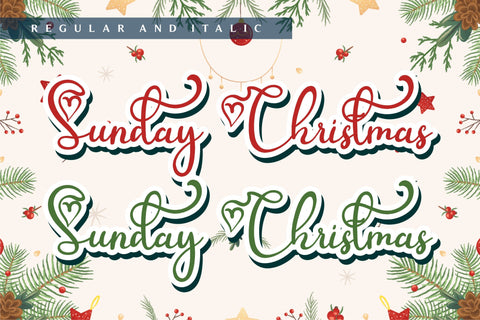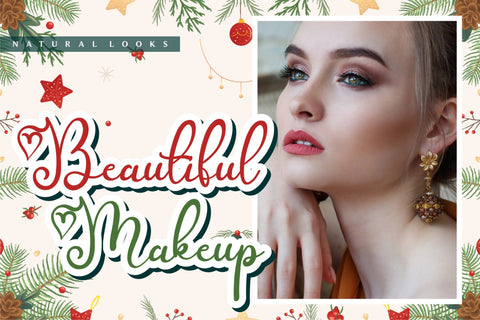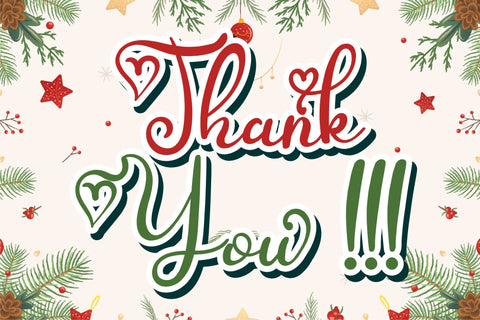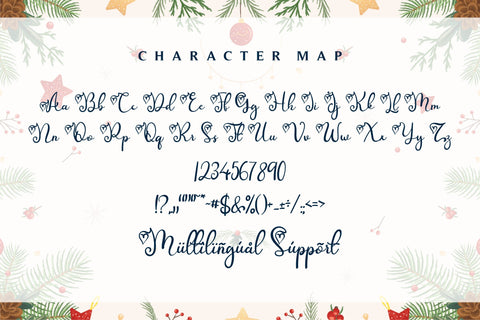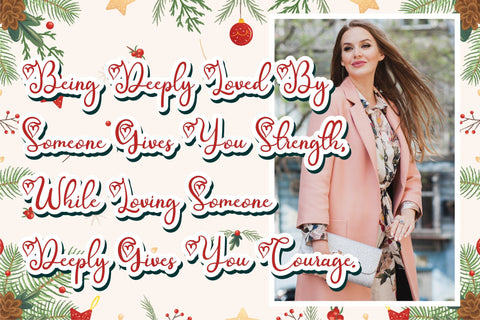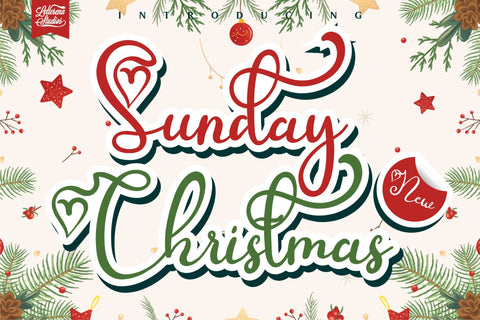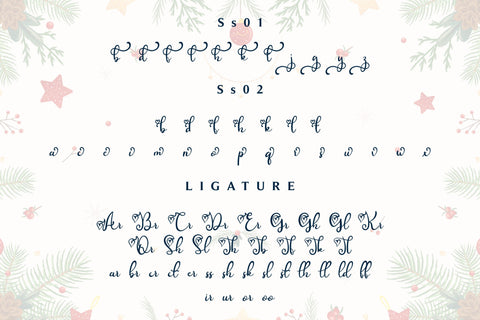
Sunday Christmas
Sunday Christmas is a stunning display font with a unique style. This font is suitable for a wide variety of projects such as: logos, branding projects, product packaging, quotes, posters, shopping bags, t-shirts, book covers, invitation cards, greeting cards, label, photography, watermark, special events, and more!